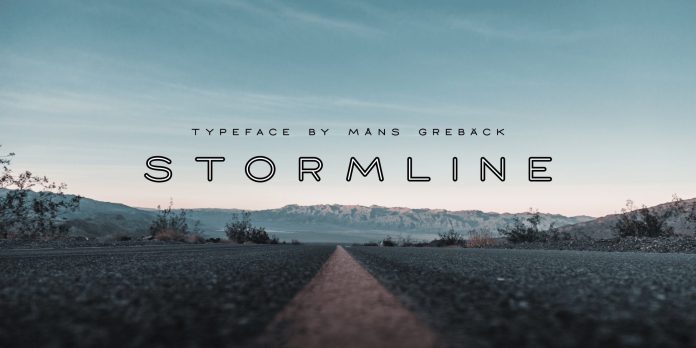
This is clean sans serif typeface with punch line in the middle of the letters and multilingual support, drawn and created by Mans Greback in 2021. This is a very versatile font that works in both large and small sizes